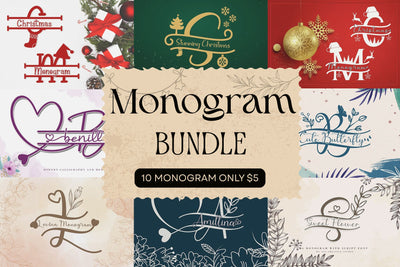
The 10 in 1 Monogram Font Bundle
Get inspired all year round with The 10 in 1 Monogram Font Bundle, a versatile collection designed to elevate your projects. This bundle includes ten beautifully crafted monogram sets, each with its own personality—perfect for Christmas designs, Valentine’s Day projects, Halloween crafts, wedding stationery, branding, and so much more. Whether you’re a designer, crafter, business owner, or DIY enthusiast, this bundle gives you a complete range of monogram styles to match any occasion. With just one purchase, you get everything you need to create stunning, personalized artwork all year long.
- Stunning Christmas Monogram with Display Font
- Cute Christmas Monogram with Script Font
- Amillina Monogram with Script Font
- Sweet Flower Monogram with Script Font
- Christmas Surprise Monogram with Display Font
- Cute Butterfly Monogram with Script Font
- Benilla Monogram with Script Font
- Monallesia Monogram with Script Font
- Levina Monogram with Script Font
- Creepy Halloween Monogram with Display Font